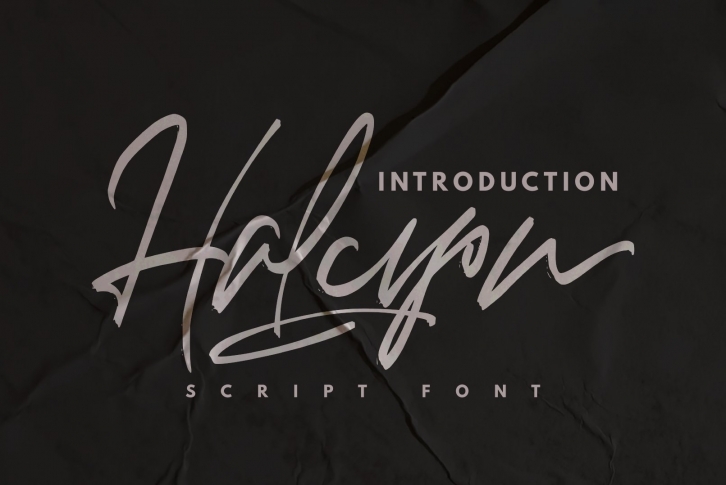
Halcyon is a beautiful font that was designed by InspiraType. It's a great choice for designers and creatives who need such a font. It was released on July 20, 2020 and the file size is 1.23 MB. Halcyon may give a more youthful, expressive and casual look to your project. It is a very beautiful, refined, elegant, and high-quality font.